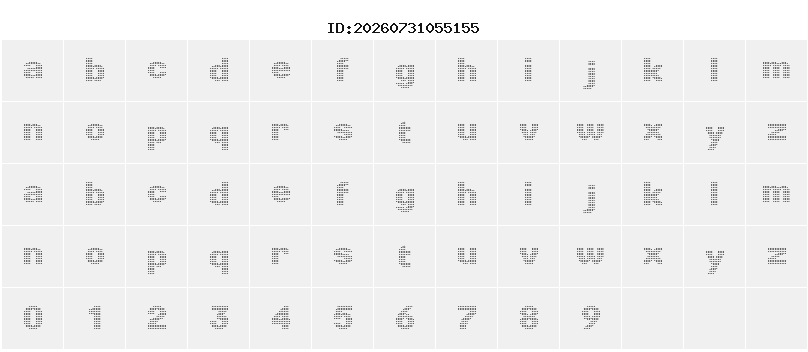
• Font Name: LTPunkt Light
• Full Font Name: Linotype Punkt Light
• Designer: Mischa Leiner
About LTPunkt Light.ttf
LTPunkt Light.ttf is a modern, elegant sans-serif font designed for ultimate readability and visual harmony. Perfect for branding, headlines, web design, and print materials.